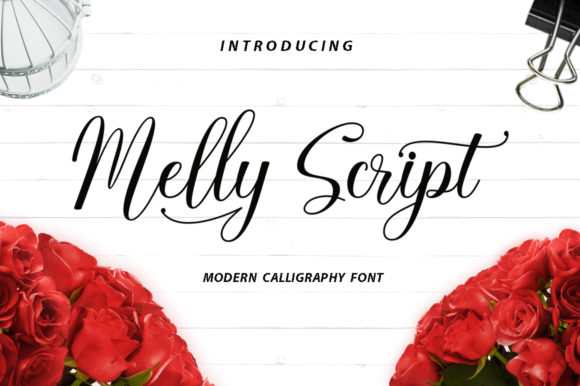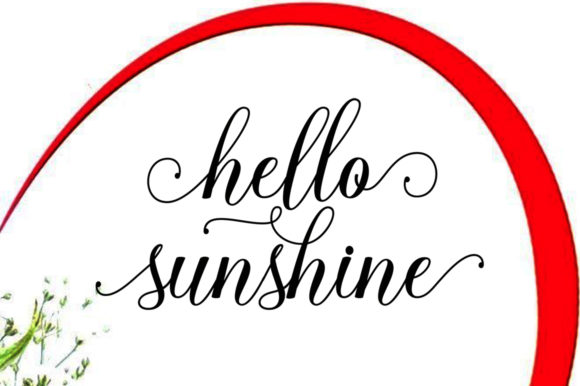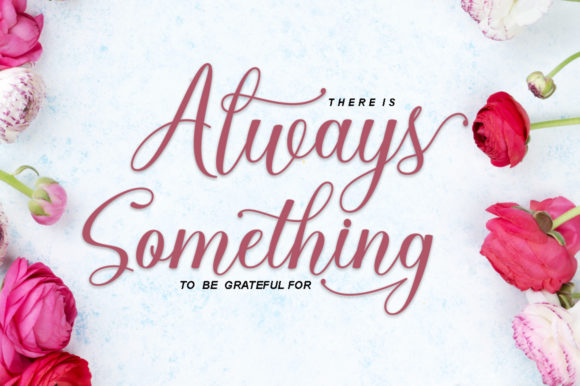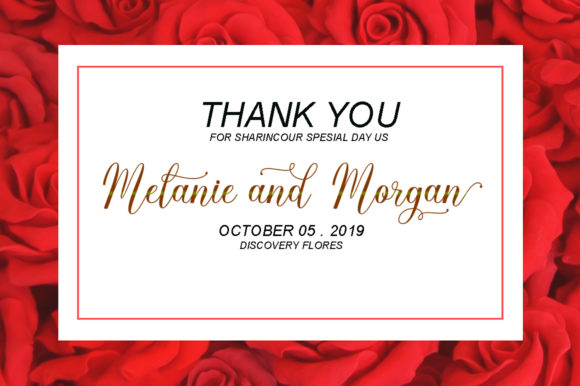
Melly Script Font
About Melly Script Font
The Melly is a modern calligraphy script. It includes beautiful swashes which will add an elegant touch to your designs.
It can be used for logos, product packaging, wedding invitations, branding, headlines, signage, labels, signature, book covers, posters, quotes and more.